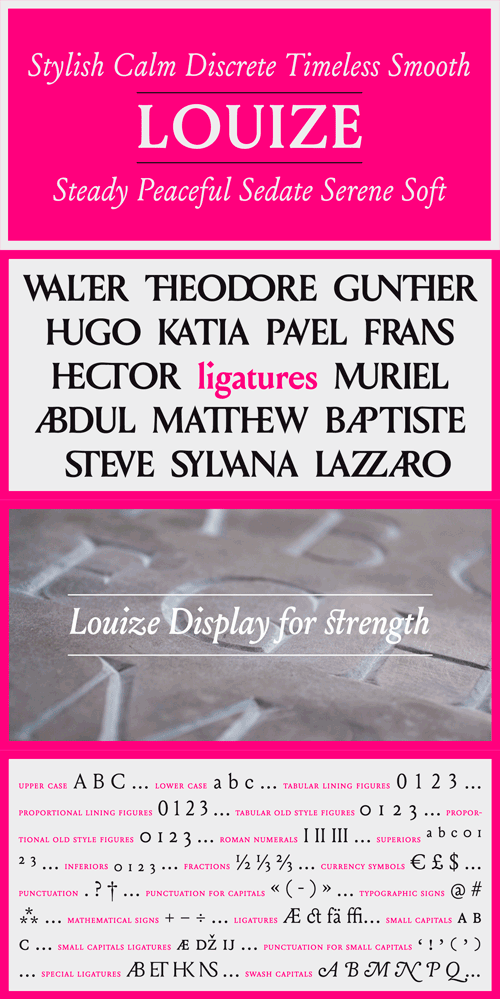
Louize Font Family
Louize is a contemporary revival of the ‘Augustaux’ designed by Louis Perrin between 1846 and 1855, and considered as the first revival in the history of typography. Louize mixes roman square capitals with a set of transitional / old style / incised lower case, carefully made for comfortable reading in long texts. Its Roman styles have small caps, while italics are completed with swash capitals. All styles offer the signs needed for European languages written in Latin script. Hence the large amount of 5985 glyphs, distributed between the 6 styles (Regular, Medium, Bold and their italics). For titling, Louize is completed with its 'sister’ Louize Display. Louize is peaceful, sedate, serene, soft, and timeless. Louize Display is bright, keen, sharp, contemporary. In Roman, Louize Display has a special series of ligatures inspired by those of the stone carvers. Its italic give all their splendor to the swash capitals of its historical model.